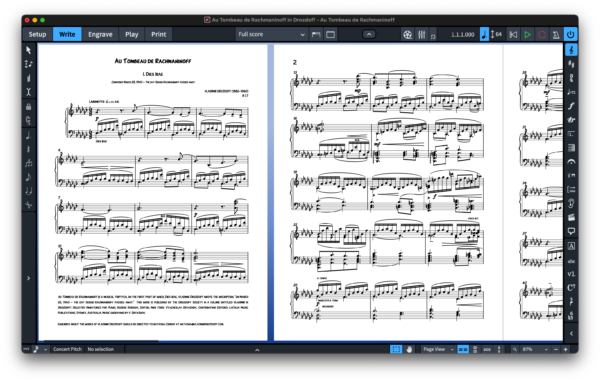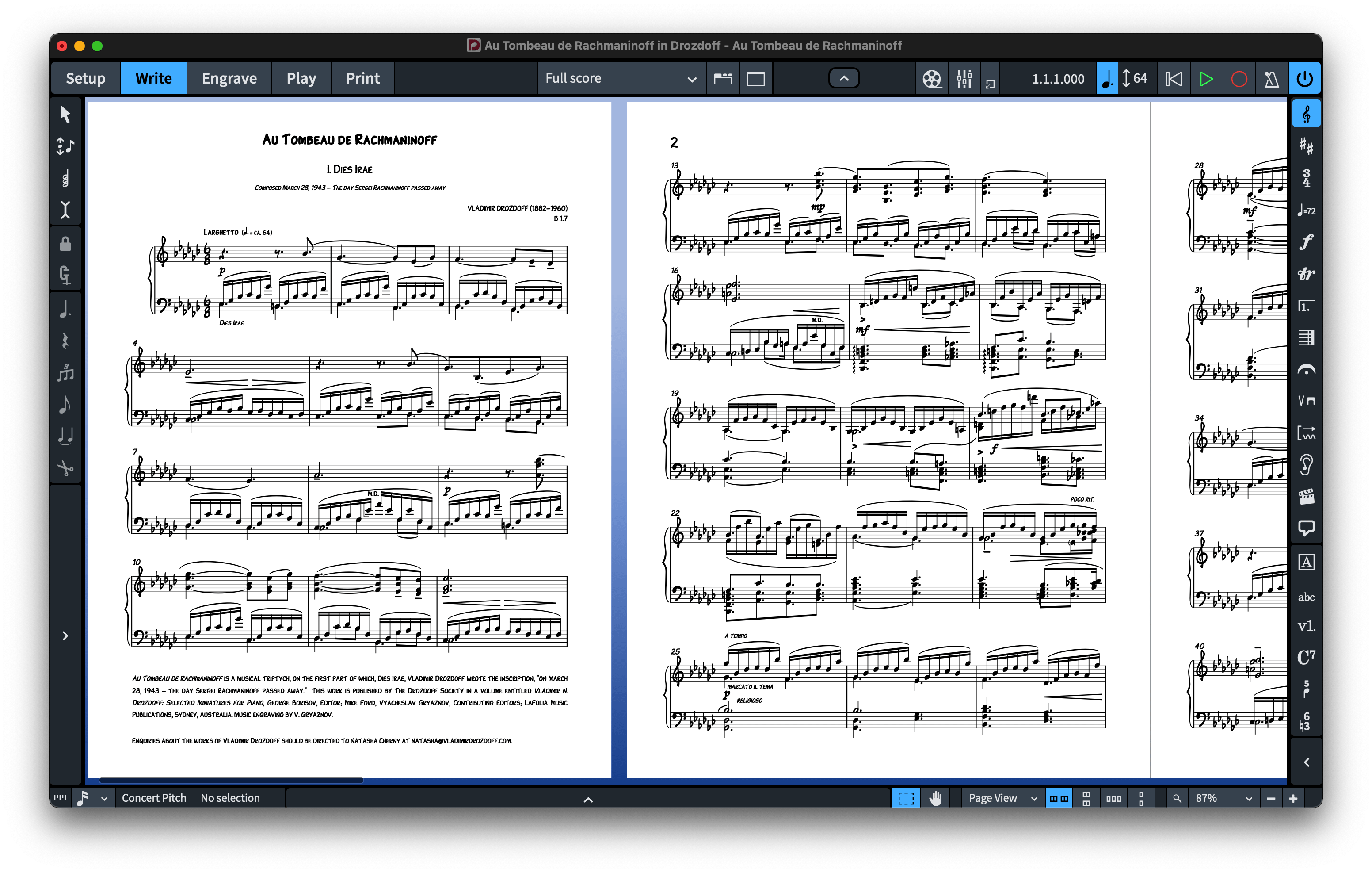
Rhapsody (SMuFL) Font
10 fonts for a Professional Handwritten Jazz Scores!
RHAPSODY FONTS FOR DORICO, FINALE V27, & MUSESCORE V4.6 FEATURES 2 MUSIC SMUFL COMPLIANT MUSIC FONTS AND  8 JAZZY TEXT FONTS.
Rhapsody is handwritten music and text fonts for Dorico & Finale v27 with lots of personality. Nothing else will get you as close to the look and feel of the classic Broadway scores in the style of West Coast copyists. Rhapsody fonts feature more than 1400 music symbols and work as an alternative to Bravura, Petaluma fonts, Finale Maestro, Finale Jazz, or Finale Broadway fonts.
I’ve been using the Rhapsody font family for a few years now; it’s easy to read, and works well for parts when gigging. The author’s attention to detail is impressive.